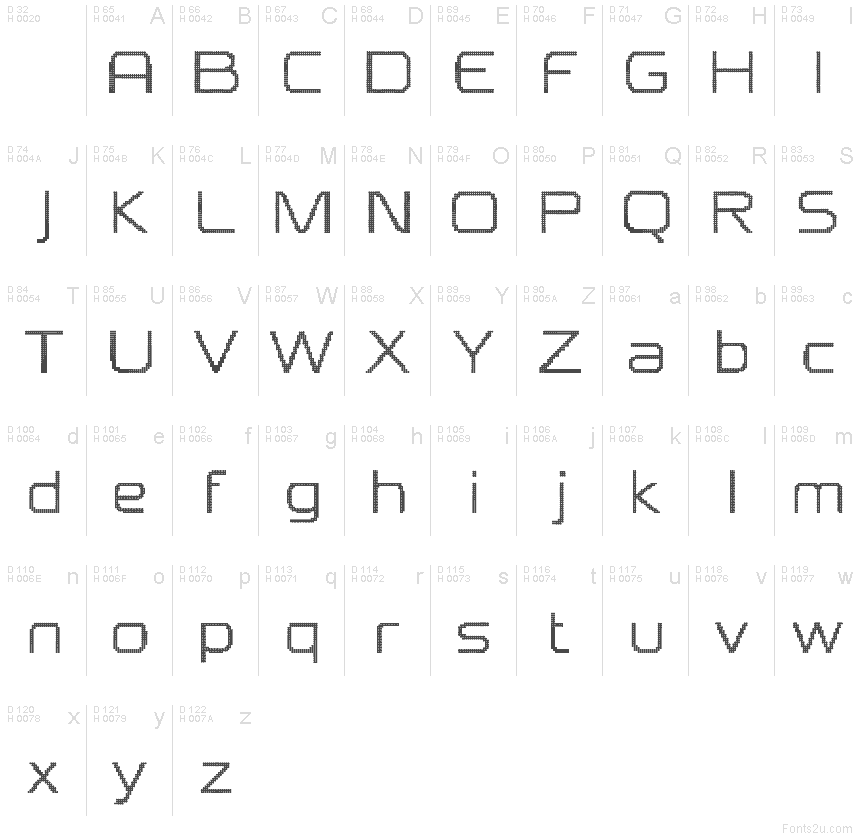
MegatransDisco-Regular Demo
Megatrans Disco font is an innovative display designed by Craft Supply Co. It combines modern, digital-inspired aspects that work well within expanded structures. The font has a pixelated texture whose tech-oriented presence gives an authentic vibe. Megatrans Disco’s minimalist aesthetics grant it a contemporary, futuristic, and professional appearance with sharp blocks and clean strokes.
Megatrans Disco Demo